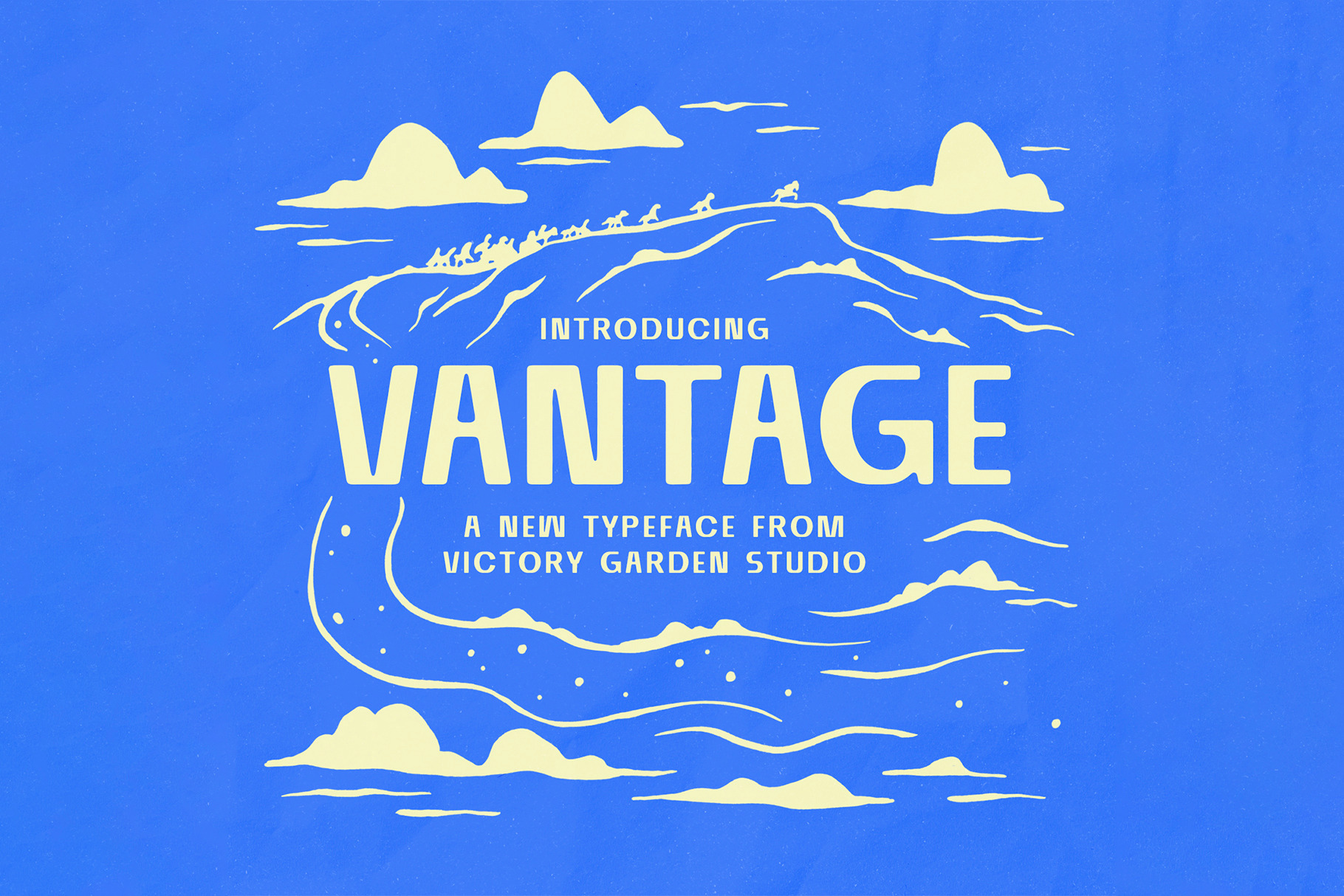
VANTAGE | Hand Drawn Font
Introducing VG Vantage!
A bold and blocky, sans serif typeface! Featuring capital A-Z, Numbers 0-9, Punctuation, and Alternate Characters.